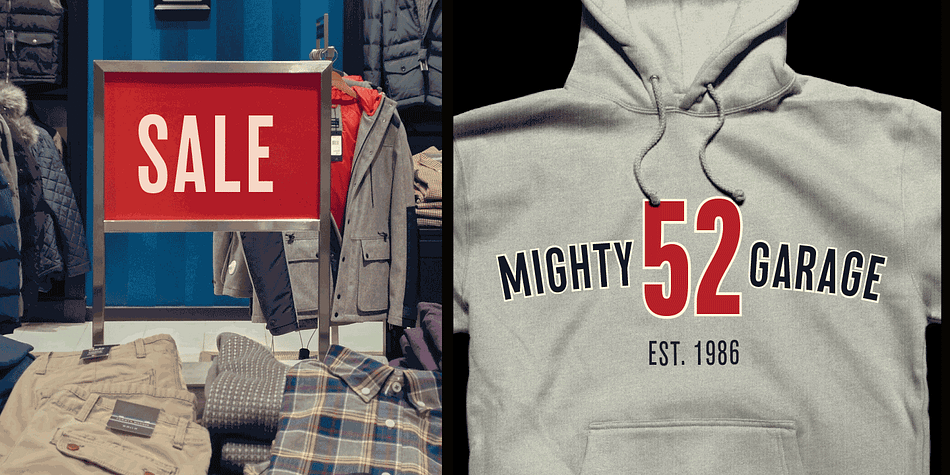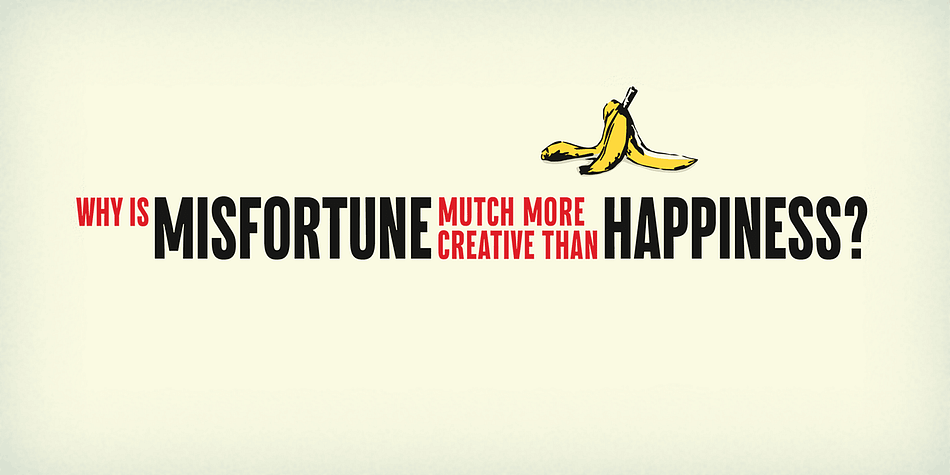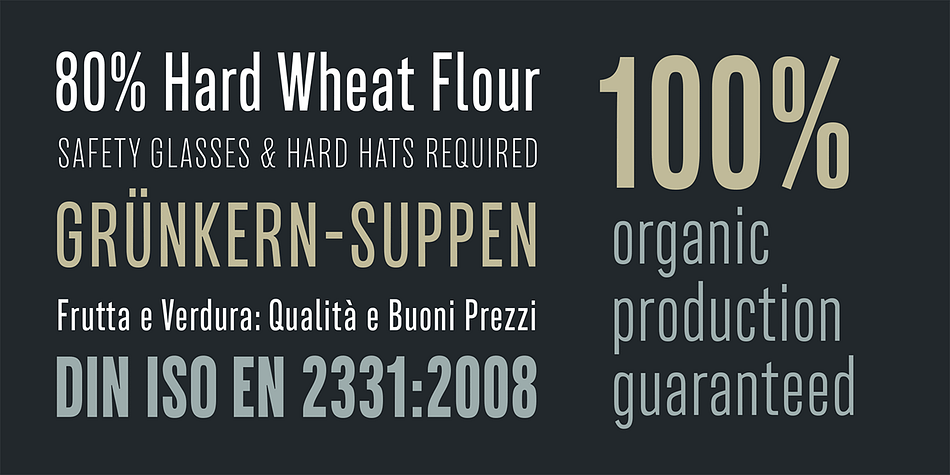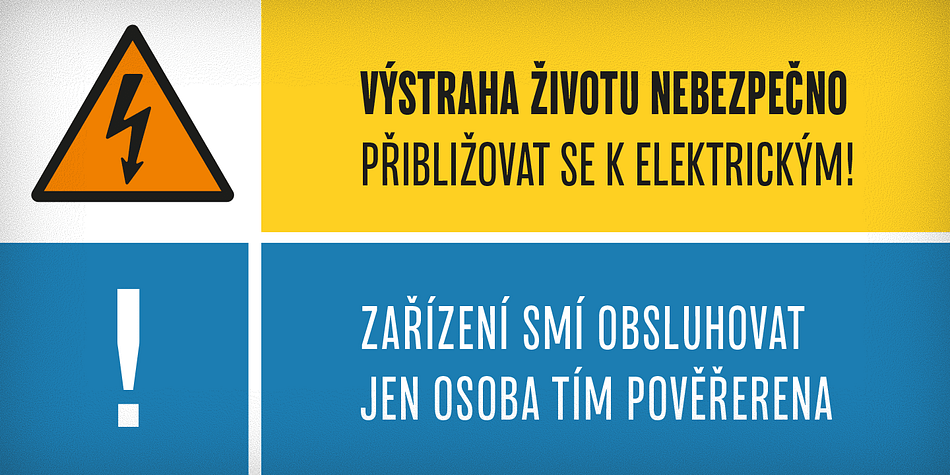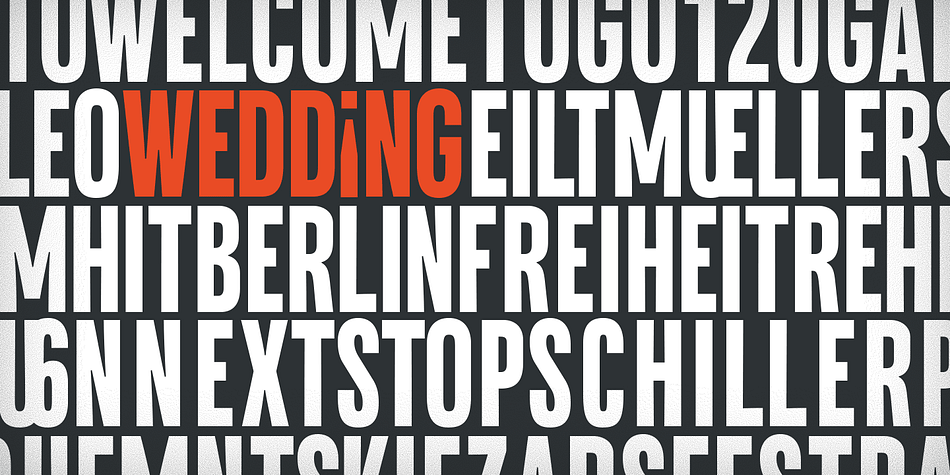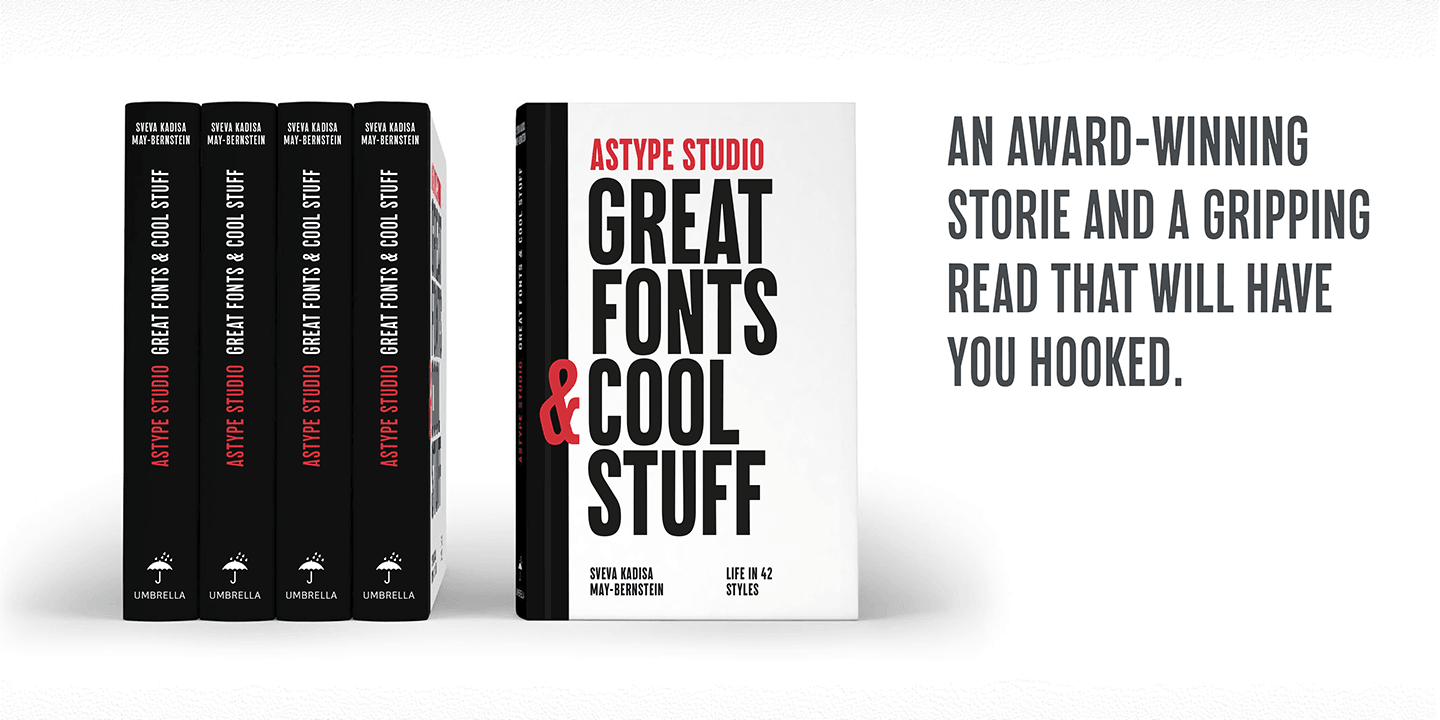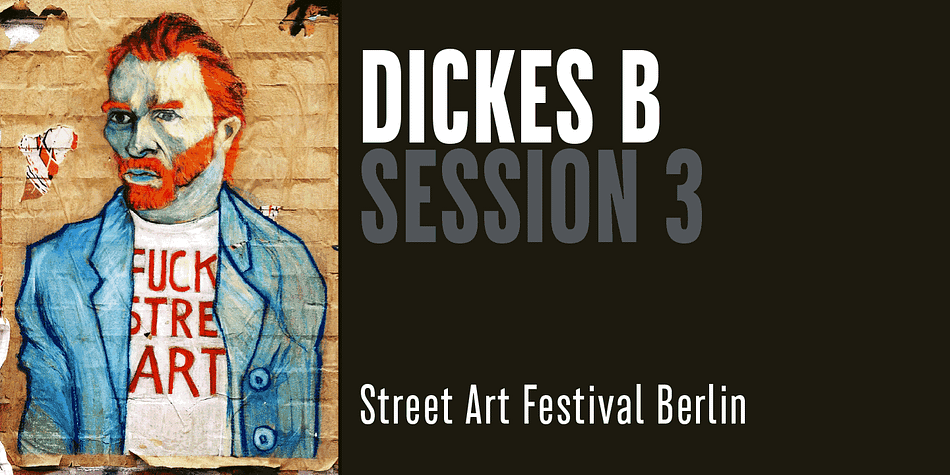
Designed by Andreas Seidel, Bonnet Grotesque Nr is a sans serif font family. This typeface has six styles and was published by Astype.
Since the release of Wood Bonnet Grotesque No. 4 the font became popular for packaging and adverts. But the font styles were limited to one worn and one clean font in a medium weight only.
Bonnet Grotesque Nr [Narrow] will fill this gap. It’s based on Wood Bonnet Grotesque No. 4 but slightly modernized with sharp corners. Some letters need more space now – so tracking is not the same.
The Medium family style shares the same weight like the wood version.